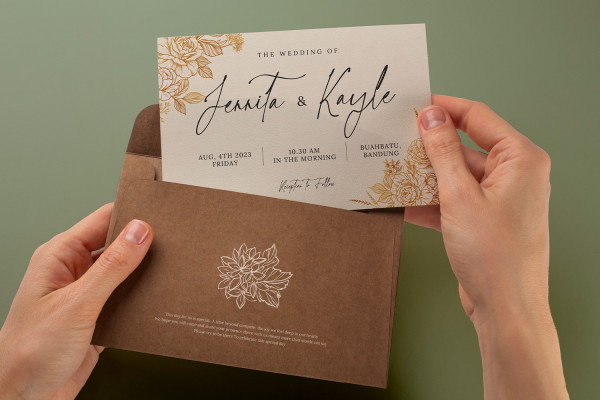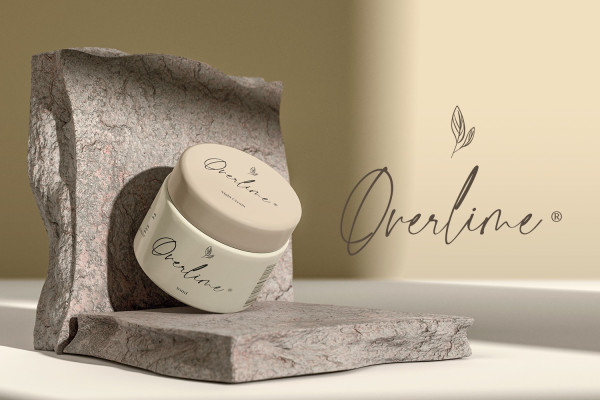
Markingmate Font
Markingmate Font a script font meticulously crafted to emulate the fluidity of continuous handwriting while retaining a subtle contrast that adds depth. With its understated contrasts, this font achieves a delicate equilibrium between sophistication and approachability. Every stroke is thoughtfully designed to convey the essence of hand-drawn elegance.
The font’s graceful curves and gentle transitions create an inviting rhythm, effortlessly guiding the reader’s eye across the page. The proportions of each letter are thoughtfully varied, resulting in an authentic handwritten quality that evokes a sense of personal touch. This unique variability captures the essence of genuine penmanship, allowing your text to breathe with individuality and warmth. For the best legibility use this font in the bigger text sizes.